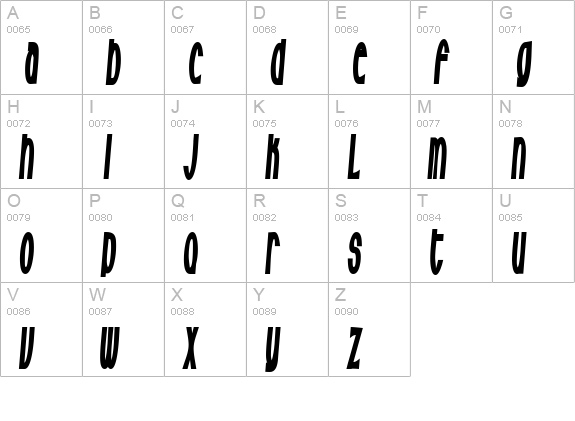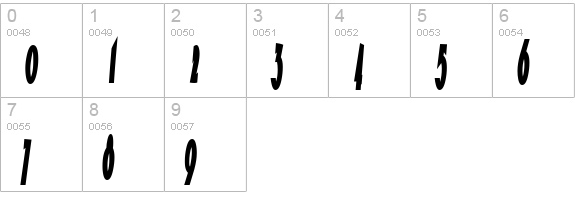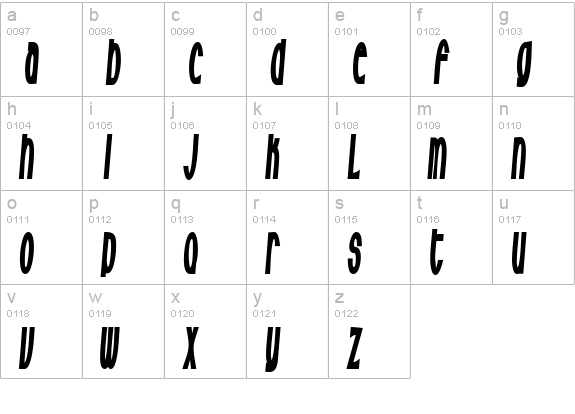
Milkfresh Font Details
Introducing Milkfresh font, a delightful and versatile typeface that brings a touch of freshness to your designs. With its clean lines and modern aesthetic, Milkfresh is perfect for a wide range of projects, from branding to packaging to social media graphics. This font exudes a sense of simplicity and elegance, making it a great choice for both professional and personal use. Its smooth curves and balanced letterforms make it easy to read and pleasant to look at, ensuring that your message will always come across clearly. Best of all, Milkfresh is available for free download at FontsMarket.com, so you can start using this beautiful font in your projects right away. Don't miss out on the opportunity to add a touch of sophistication to your designs with Milkfresh font. Download it today and elevate your creations to the next level.